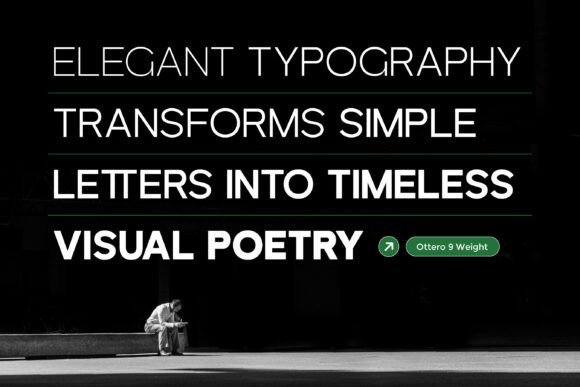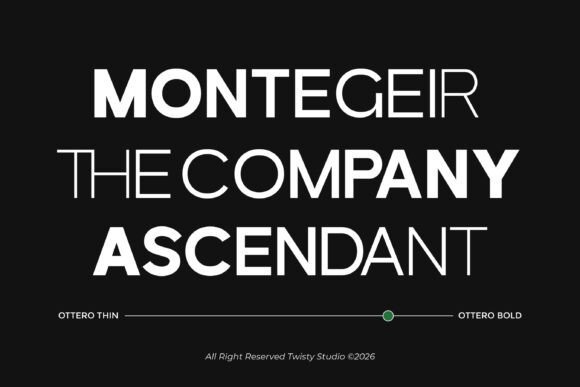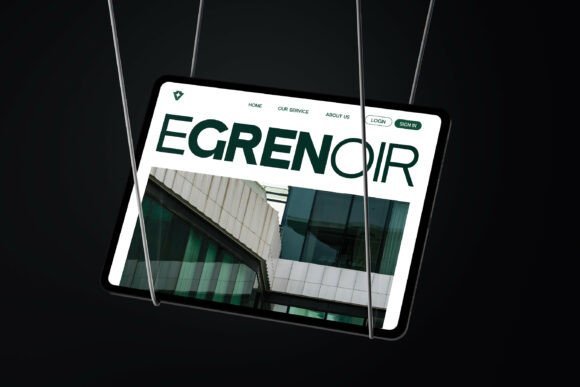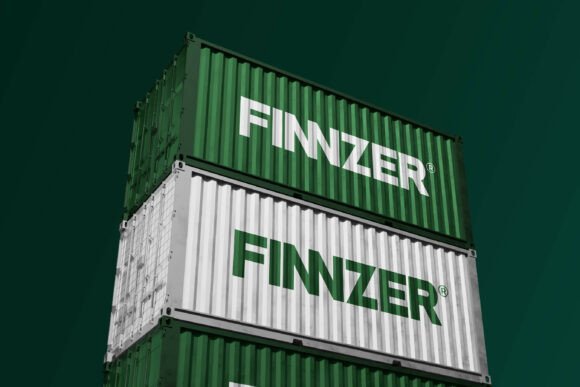
Ottero Font
Ottero is a clean sans serif family font designed to deliver clarity, consistency, and modern simplicity across every design. Featuring 9 carefully crafted styles, Ottero provides the flexibility to build strong visual hierarchy while maintaining a cohesive and professional look. With its clean lines, balanced proportions, and refined structure, Ottero creates a smooth and highly readable appearance. Its minimalist approach ensures that every detail feels precise and uncluttered, making it suitable for both bold headlines and extended body text.